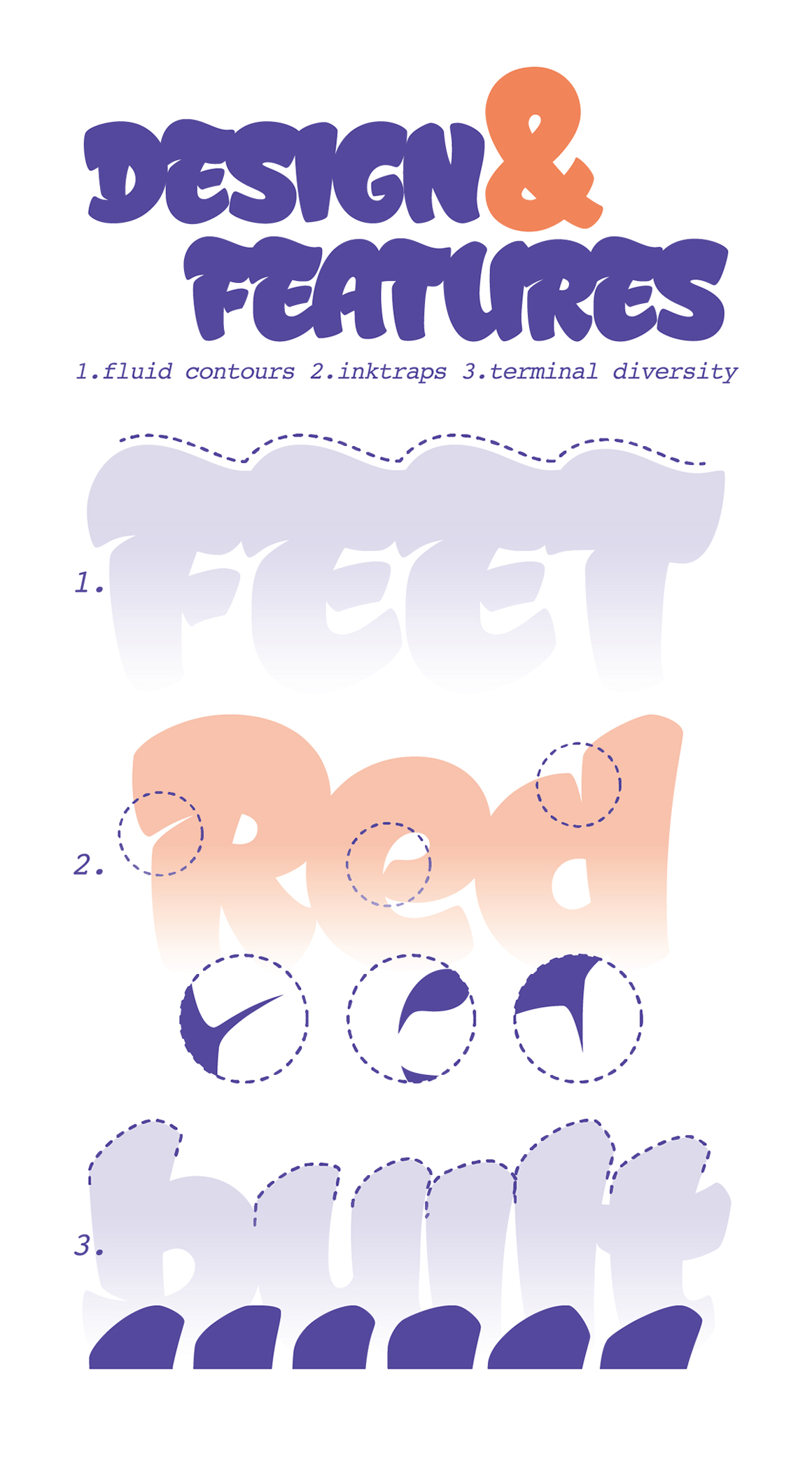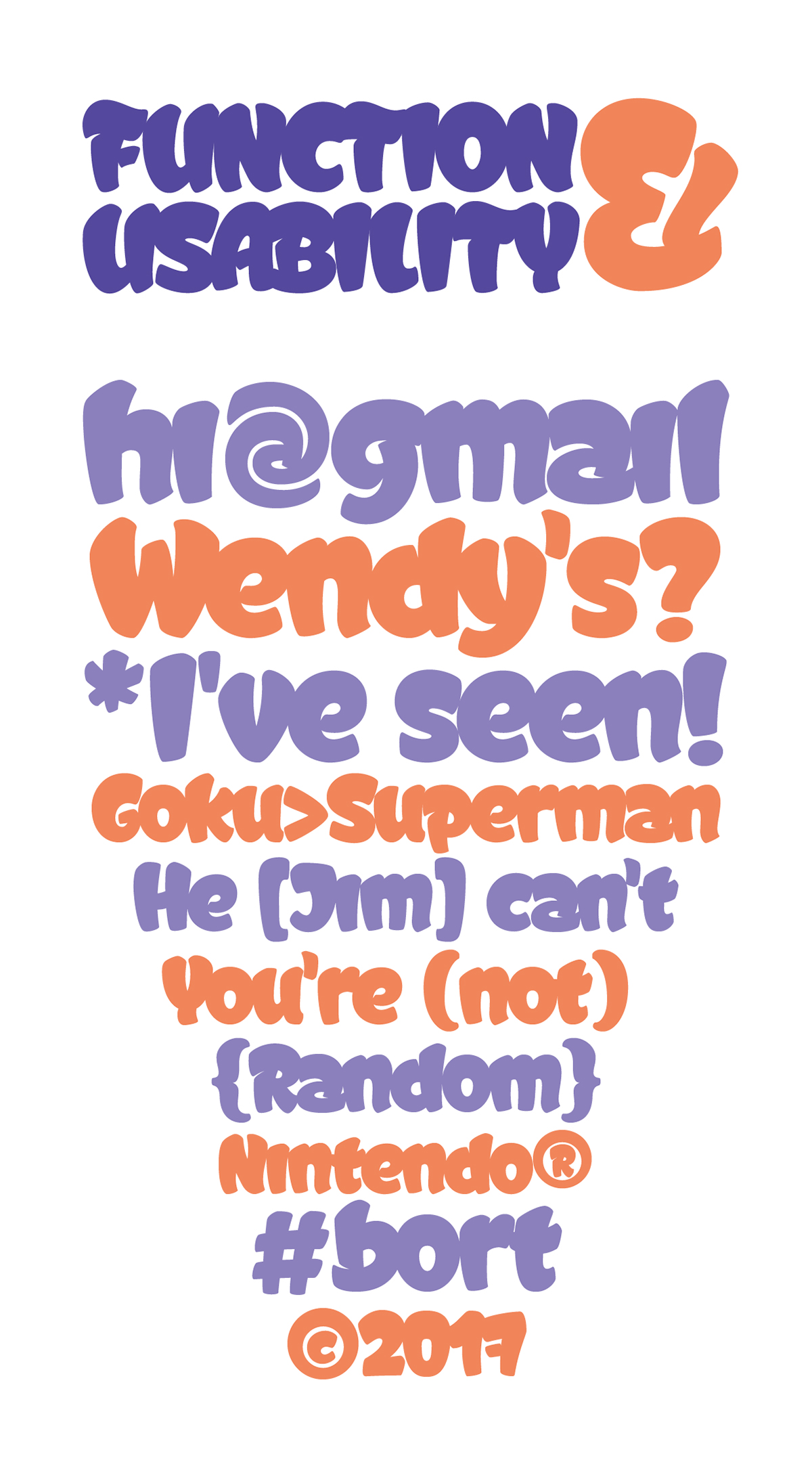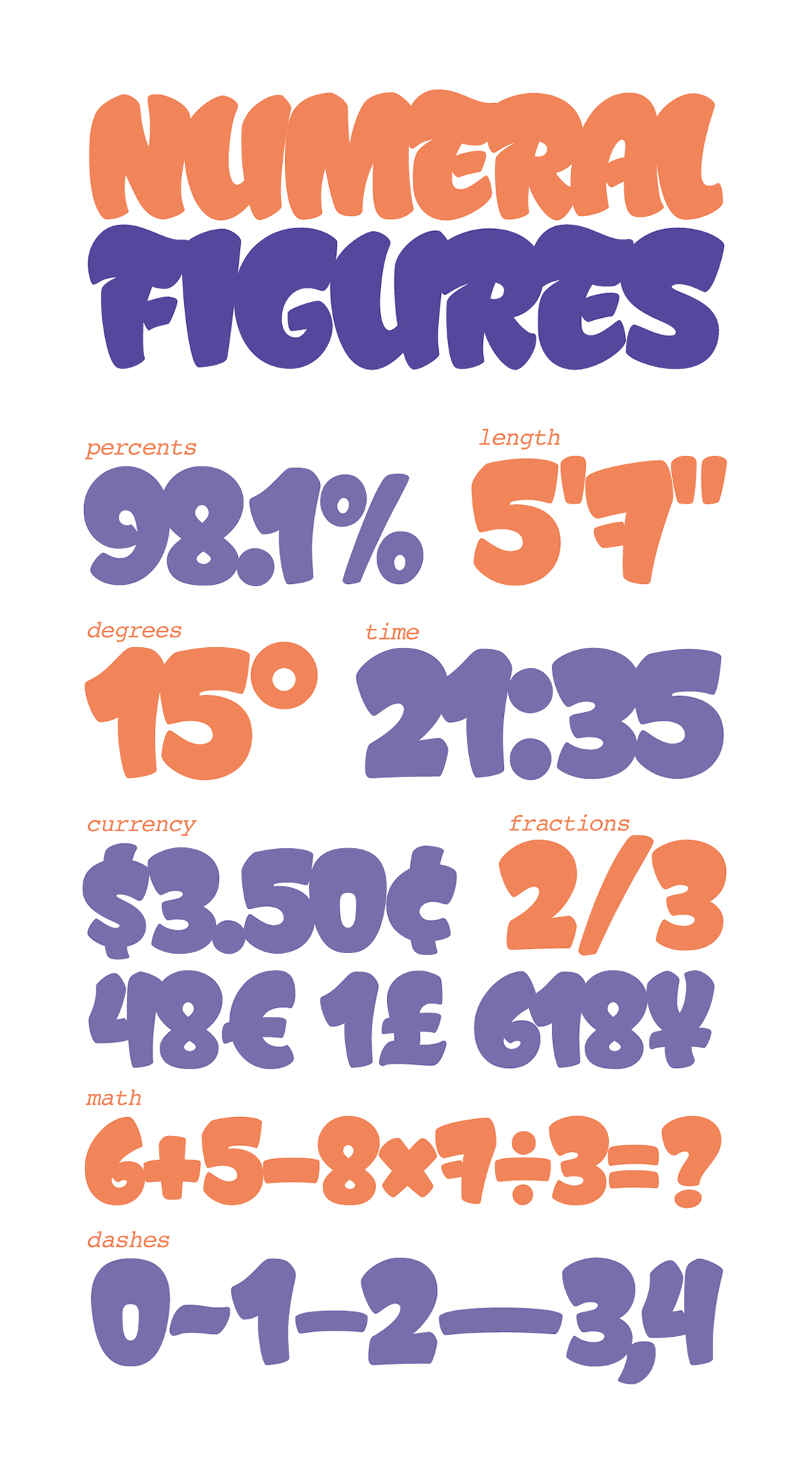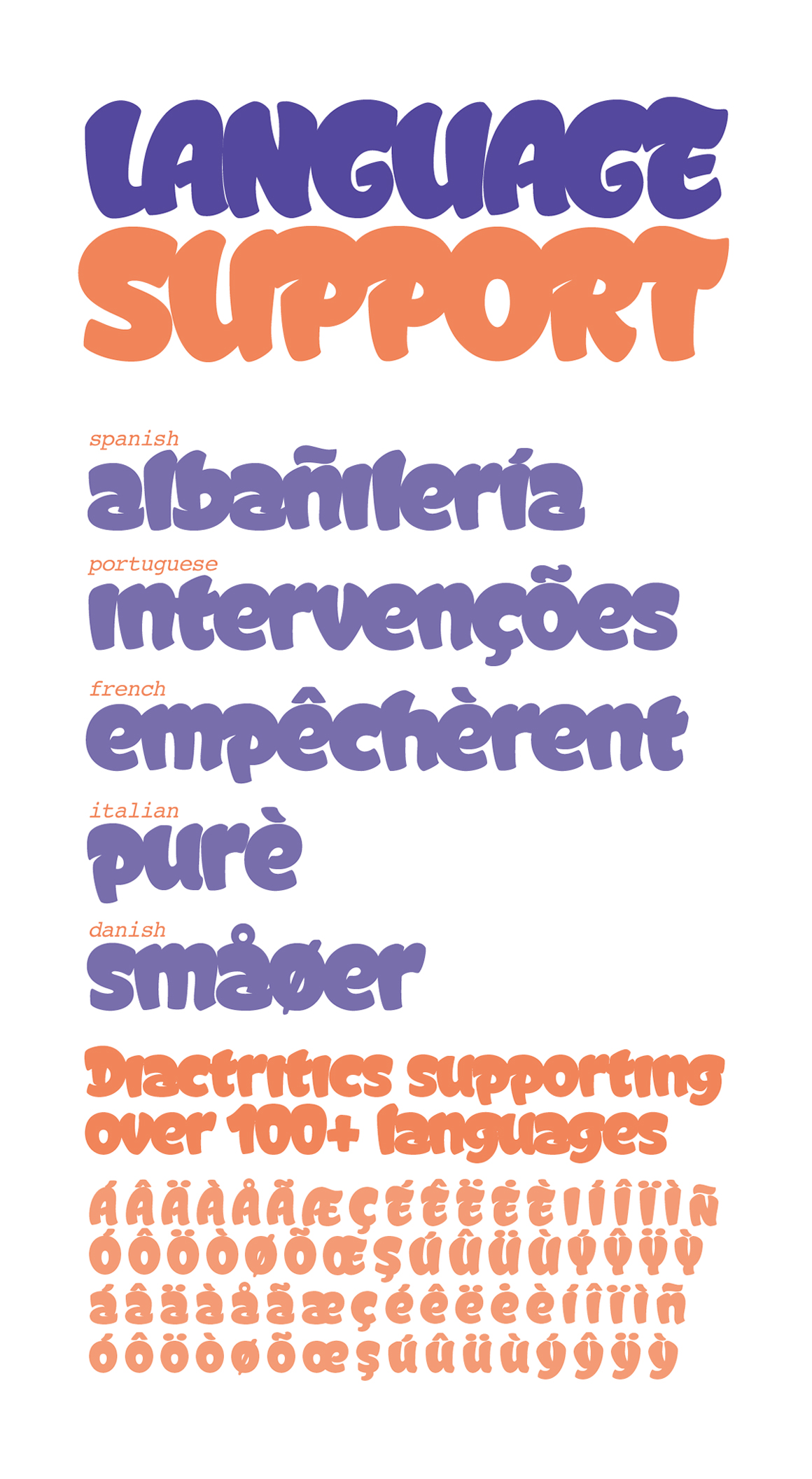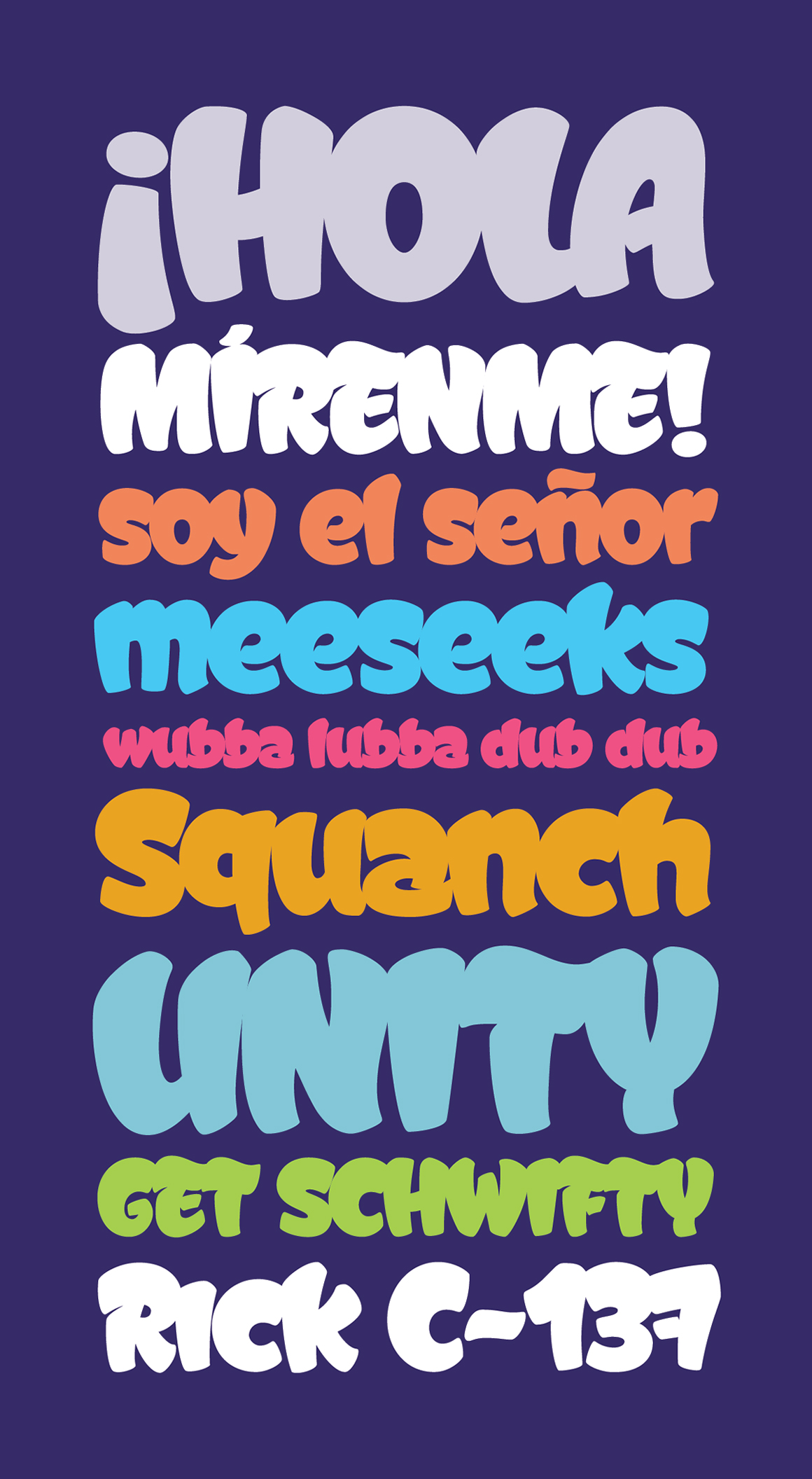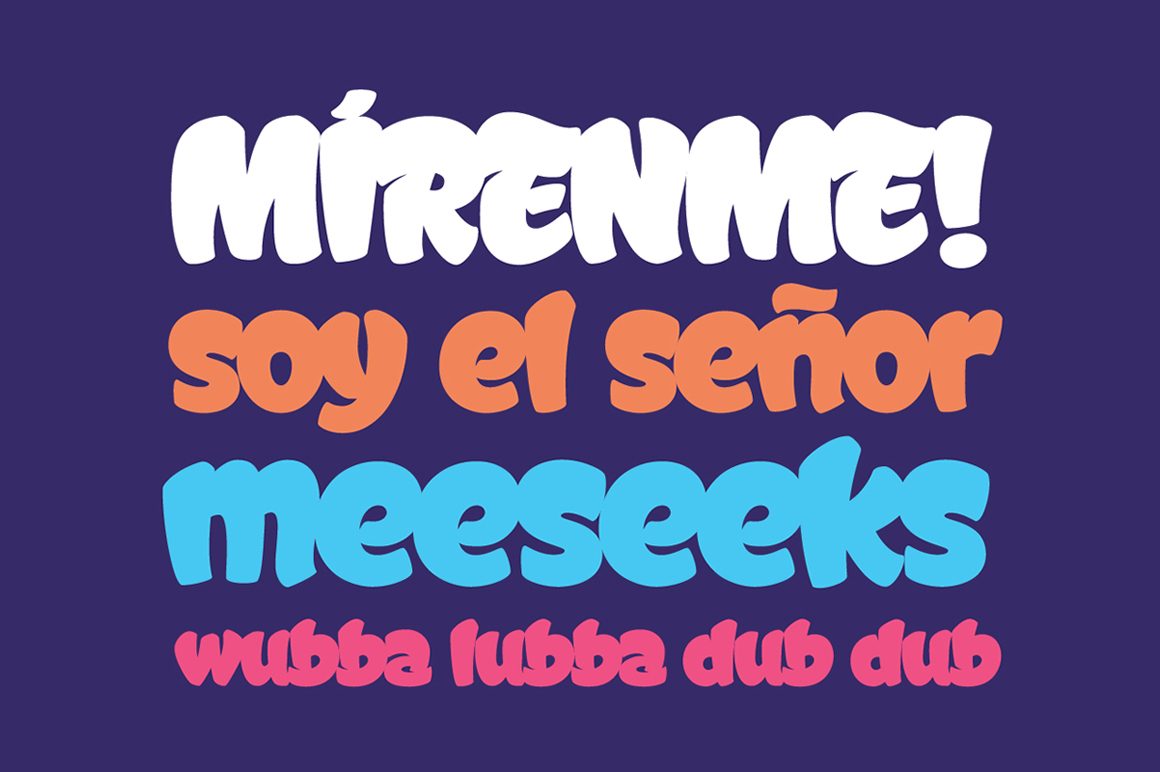
Graffismo Free display font
Graffismo free display commercial use font bold and catchy free display font called Graffismo. Designed to be used as a headline and title. Use Graffismo to give a fun and friendly feeling to your message.